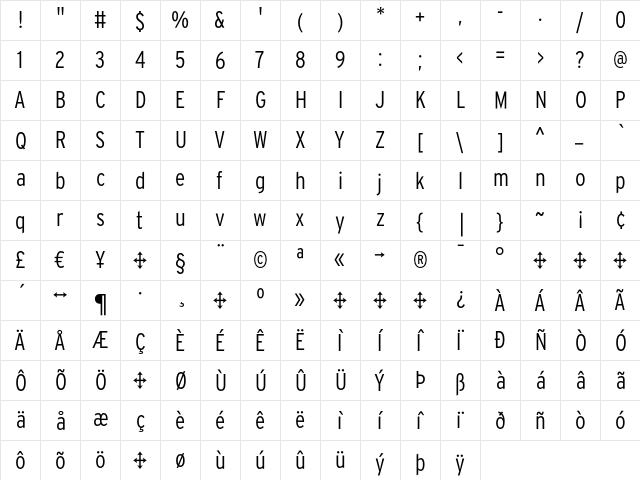
InterstatePlus Light Cond
Design Context for InterstatePlus Typeface
InterstatePlus takes a measured approach to typography — its balanced proportions and neutral character make it a reliable workhorse for both digital and print work. Its slender proportions lend an understated elegance to any composition. The condensed width makes it efficient for tight spaces without sacrificing legibility.